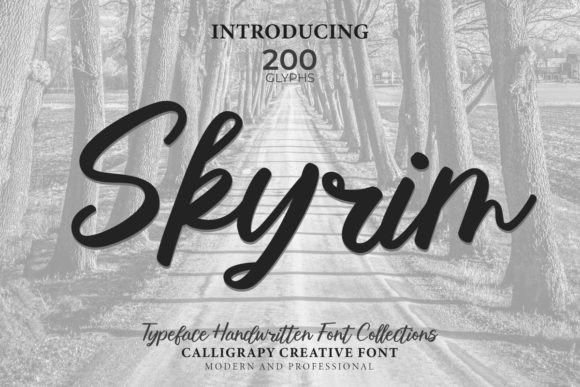
What is Skyrim Font?
Skyrim Font is a beautifully crafted handwritten typeface. Its smooth curves and fluid strokes create a sense of elegance and authenticity, perfect for projects that need a personal, human feel.
Unlike highly decorative calligraphy fonts, Skyrim Font is versatile — it combines a handwritten look with clean readability. This makes it ideal for modern branding, lifestyle designs, and even more formal occasions.
✨ Key features:
Elegant, smooth handwriting style
Clear and legible, even at smaller sizes
Stylish curves and natural flow
Great for branding, invitations, and digital design
Why Designers Love Skyrim Font
🖋 Natural Handwritten Charm:
Adds a heartfelt, authentic feel that digital designs often lack.
🎨 Elegant Yet Casual:
Sophisticated enough for weddings and branding, but relaxed enough for social media quotes.
📱 Perfect for Digital & Print:
From Instagram posts to printed stationery, Skyrim Font looks beautiful everywhere.
💡 Versatile:
Fits many styles: romantic, minimalist, rustic, or modern.
🌸 Memorable:
Its flowing letters create logos and titles that stand out.
Best Uses for Skyrim Font
Thanks to its balanced handwritten look, Skyrim Font can enhance countless design projects:
✅ Wedding Invitations & Stationery:
Couple names, menus, place cards, or thank‑you notes.
✅ Logo Design:
Perfect for boutique brands, florists, photographers, and handmade shops.
✅ Product Packaging:
Cosmetics, candles, organic products, or artisan foods.
✅ Social Media Graphics:
Instagram quotes, highlight covers, or promotional posts.
✅ Wall Art & Prints:
Motivational quotes or decorative home decor pieces.
✅ Branding Materials:
Business cards, thank‑you tags, labels, and brand marks.
✅ Photography Watermarks:
Elegant name marks that don’t distract from images.
Its handwritten style makes everything feel warm and personal.
Design Tips for Using Skyrim Font
✅ Pair with Simpler Fonts:
Use Skyrim Font for titles or names, and pair with a sans‑serif (like Montserrat or Open Sans) for body text.
🎨 Keep It Large:
Its beautiful curves are most striking at larger sizes.
🖼 Contrast the Background:
Light font color on a dark background (or vice versa) keeps text clear.
🌿 Use Subtle Textures:
Add watercolor, paper grain, or metallic foil for a handmade feel.
📏 Limit Length:
Best for short phrases, brand names, or quotes rather than full paragraphs.
Creative Design Ideas with Skyrim Font
💍 Wedding Invitation Suite:
Couple’s names in Skyrim Font with classic serif details.
📸 Photography Logo:
Studio name in Skyrim Font paired with a camera icon.
🖼 Framed Quote Print:
Positive saying like “Live Simply” in elegant script.
📱 Instagram Story Highlight:
Titles like “Travel” or “Food” in Skyrim Font.
🎁 Gift Tags:
Handwritten “Thank You” or “With Love” labels.
🕯 Product Packaging:
Candle labels with product names in graceful script.
Why Skyrim Font Stands Out
Skyrim Font isn’t overly ornate or trendy. It offers timeless handwritten elegance that feels modern but classic, casual but sophisticated. Its subtle beauty can make branding feel personal, social media posts feel crafted, and printed invitations feel luxurious.
It’s the kind of font that quietly transforms designs from “good” to “memorable.”
FAQs About Skyrim Font
Q1: Is Skyrim Font free?
Some versions may be free for personal use. For commercial projects, you usually need to purchase a license.
Q2: Can I use Skyrim Font for my brand logo?
Yes — it’s a popular choice for logos, as long as you have the correct commercial license.
Q3: Does Skyrim Font include numbers and punctuation?
Most full versions include numbers, symbols, and sometimes ligatures or alternates.
Q4: Is it good for long paragraphs?
Better suited for titles, names, and short text due to its script style.
Q5: Can I use Skyrim Font on social media?
Absolutely! It adds a handcrafted feel to posts, stories, and covers.
Final Thoughts: Bring Timeless Elegance to Your Designs
Skyrim Font is more than just letters — it’s a design element that adds personality, warmth, and elegance. From weddings and logos to Instagram quotes and product labels, it helps your work feel beautifully unique.